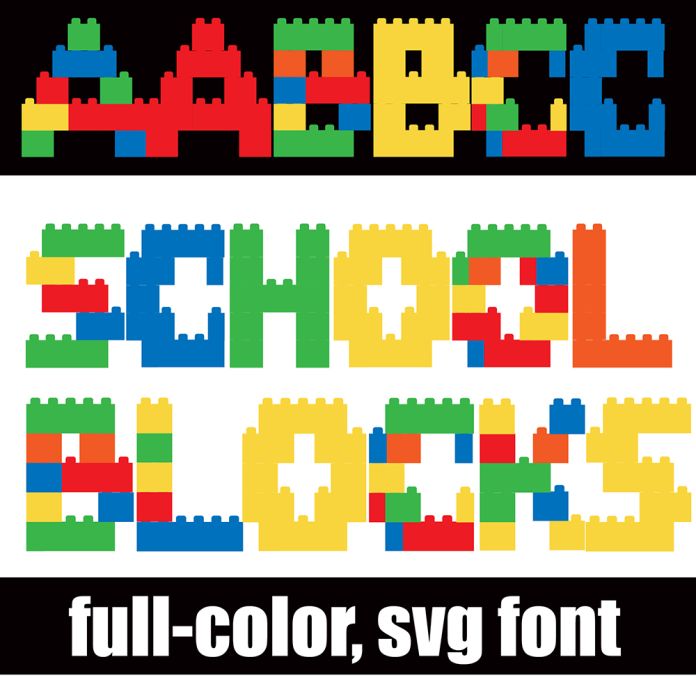
This full-color font looks like toy building blocks in a primary color palette. This full-color font features a whimsy, handwritten print that looks like colored pencils. There is an alt case with additional colors you can access through your system's character map. This font works best for titles, displays, posters and more. Please note color fonts will show as black in non compatible programs. This font type is compatible with Silhouette Studio.